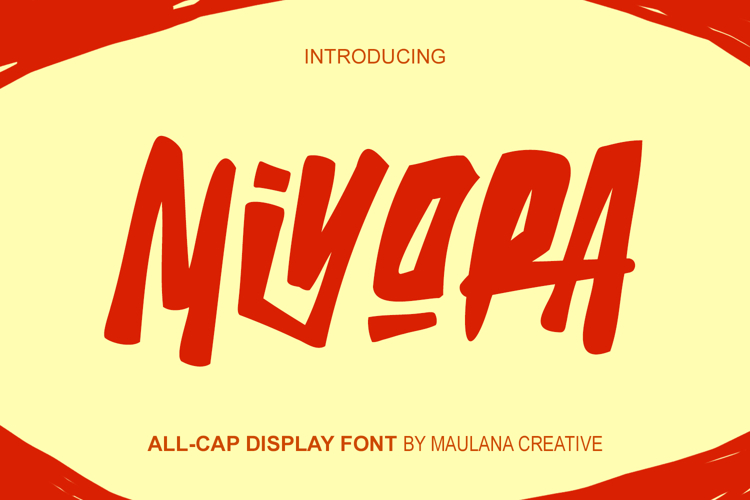
Miyora is a handmade display font. With bold stroke, fun character with a bit of ligature and alternates. To give you an extra creative work. Miyora font support multilingual more than 100+ language. This font is good for logo design, Social media, Movie Titles, Books Titles, a short text even a long text letter and good for your secondary text font with sans or serif. Make a stunning work with Miyora font.